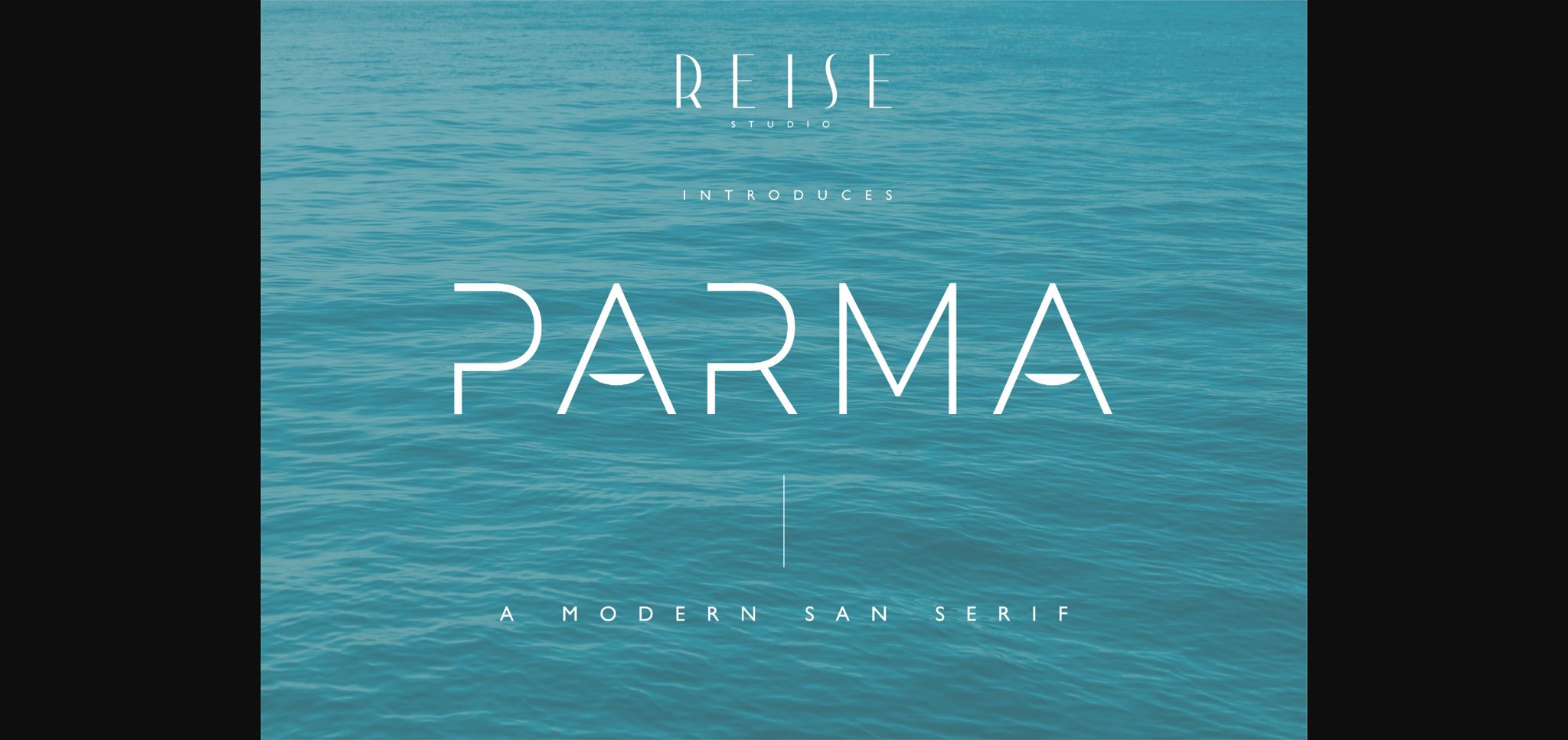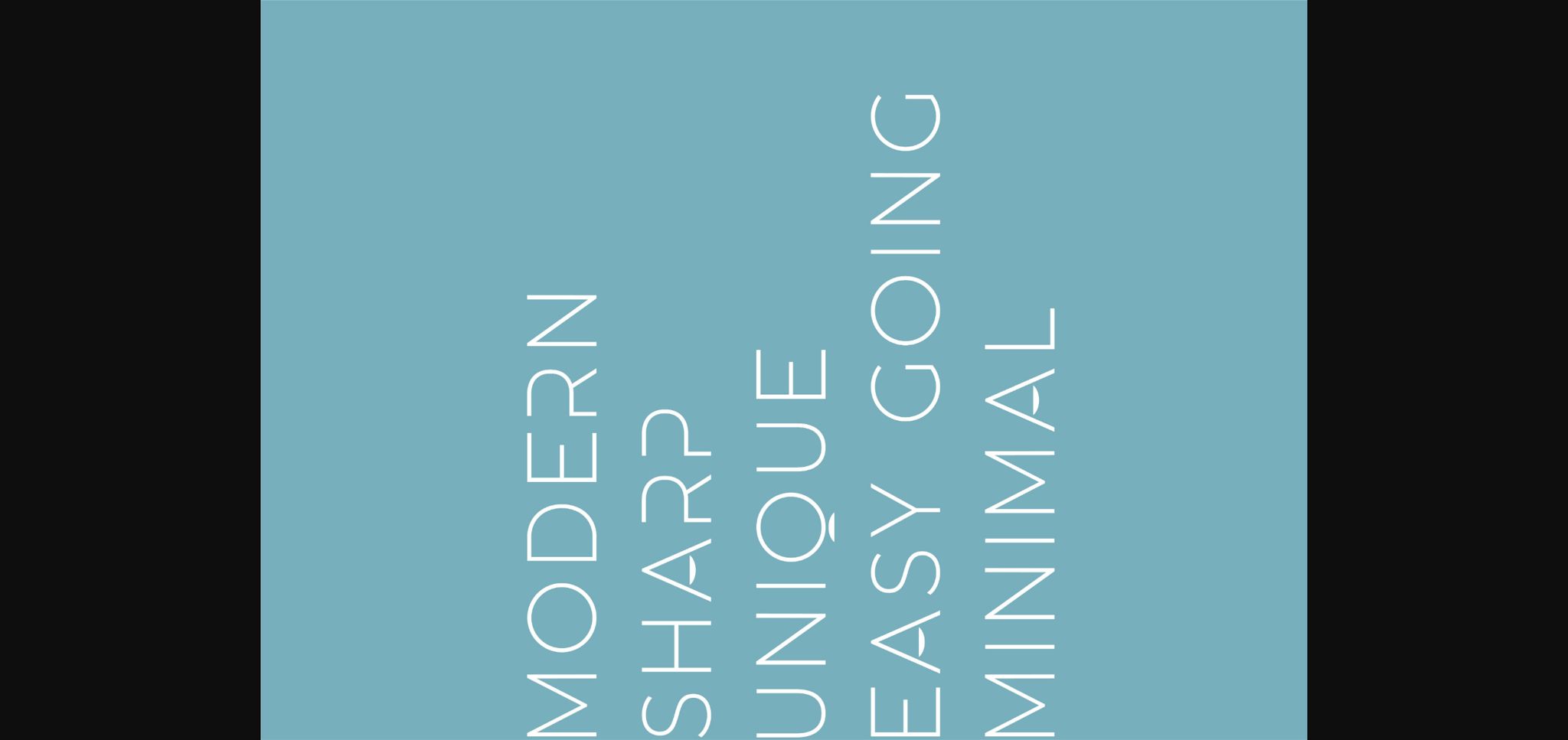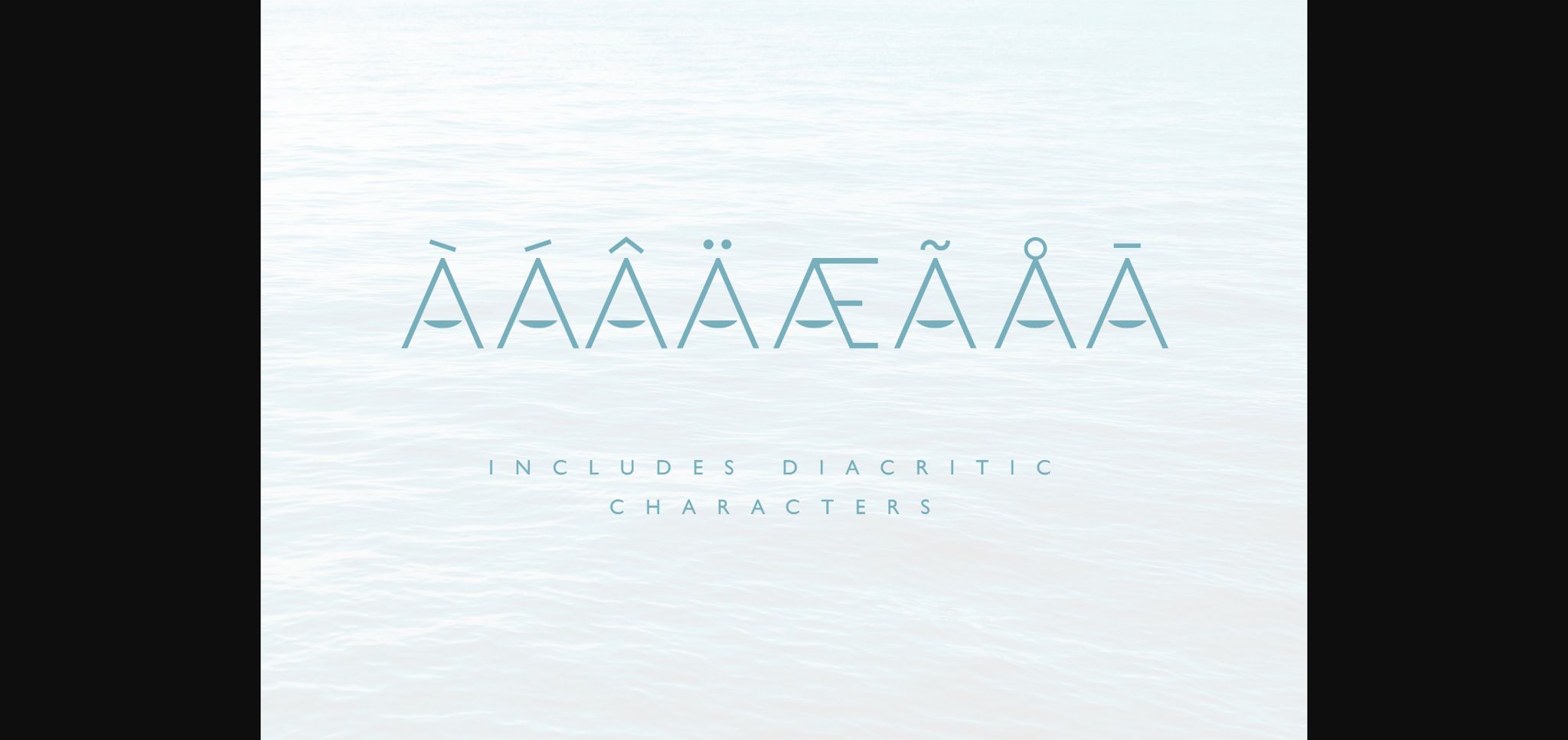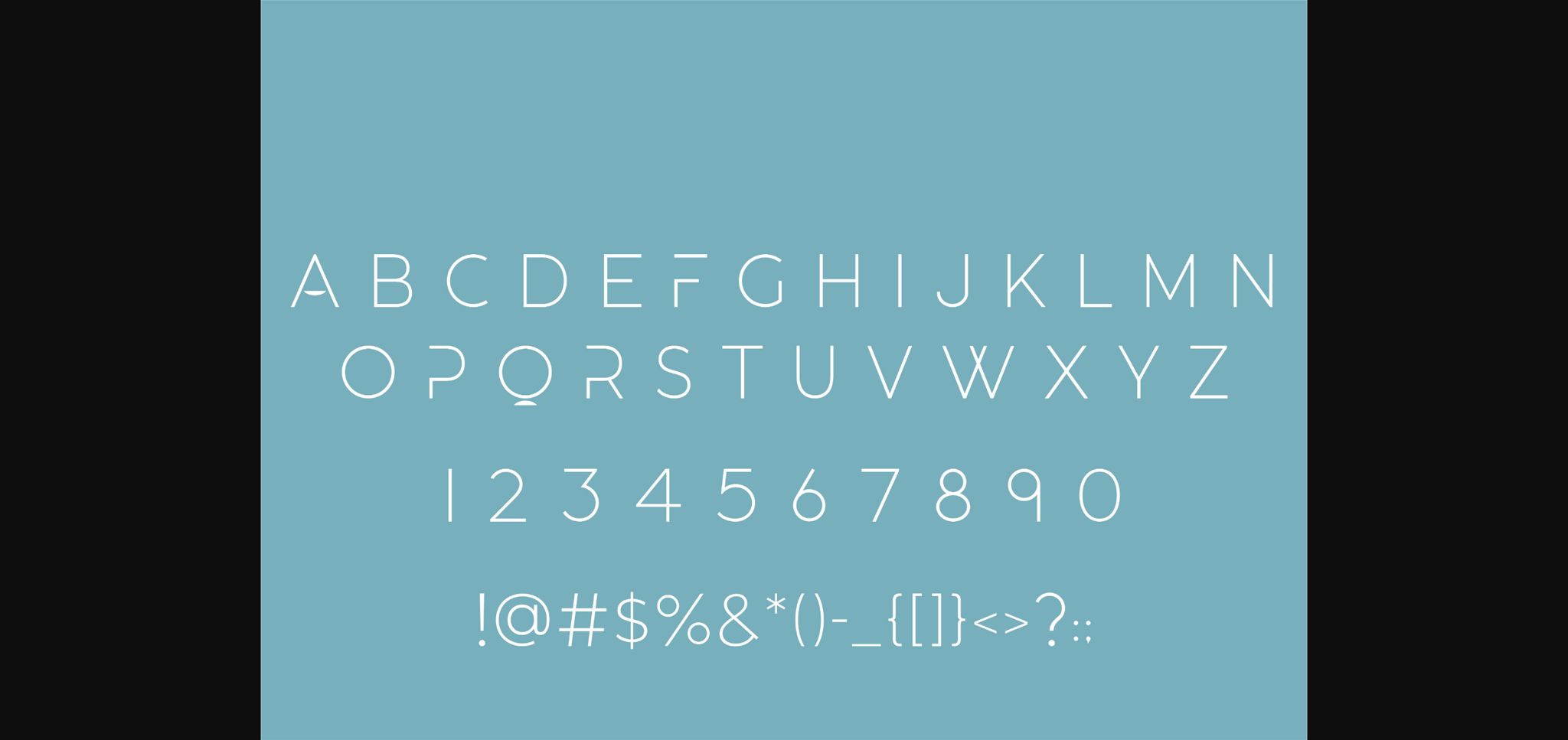
About Parma Font
Parma is a unique, minimalist sans serif font. It is perfect for branding and logo design, packaging design, magazine and brochure headings, and more. The cutting-edge, simplistic forms are guaranteed to make a statement whatever you’re designing!